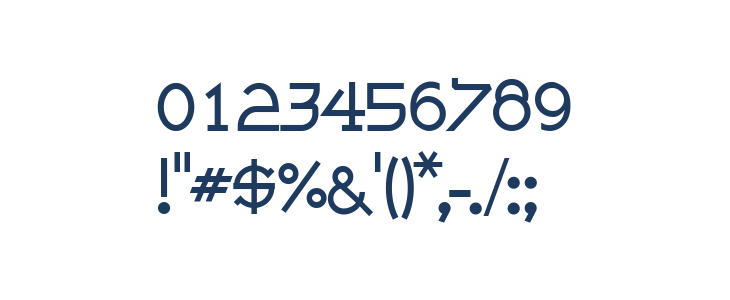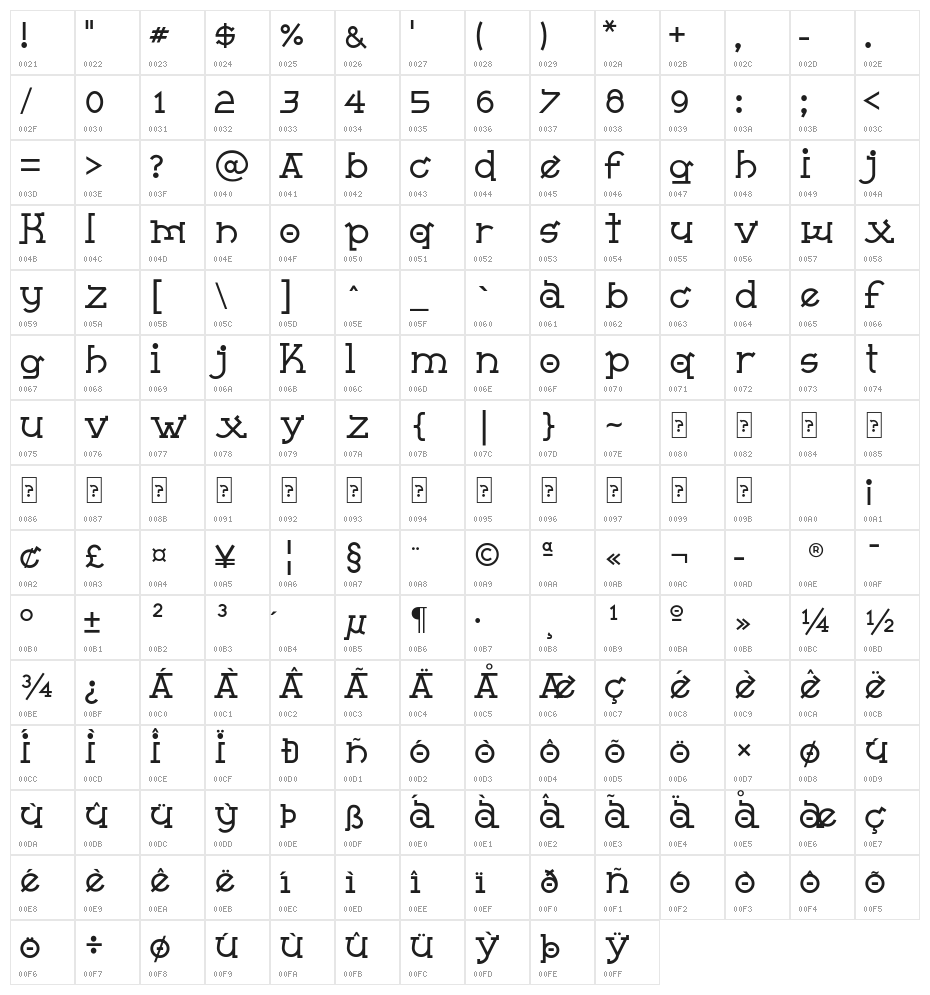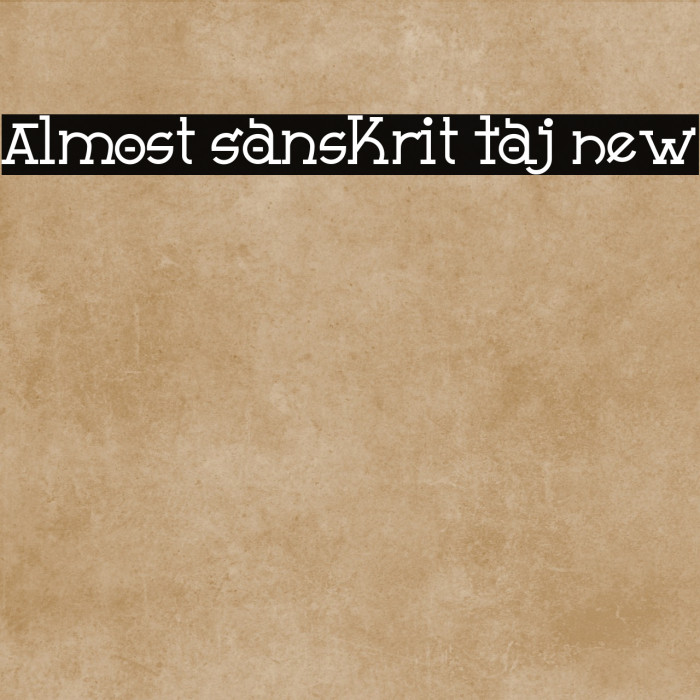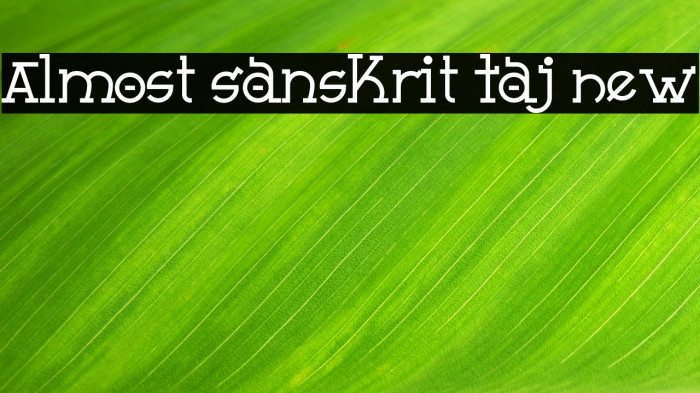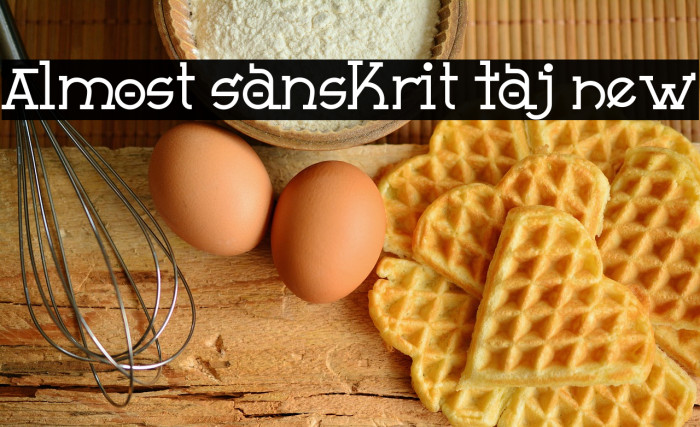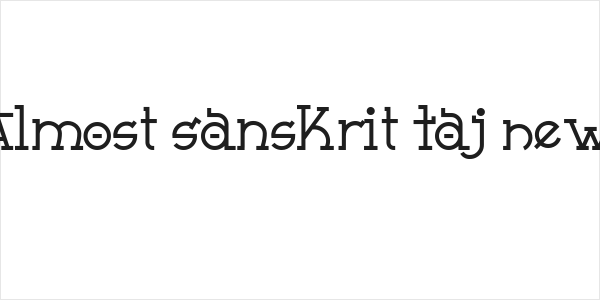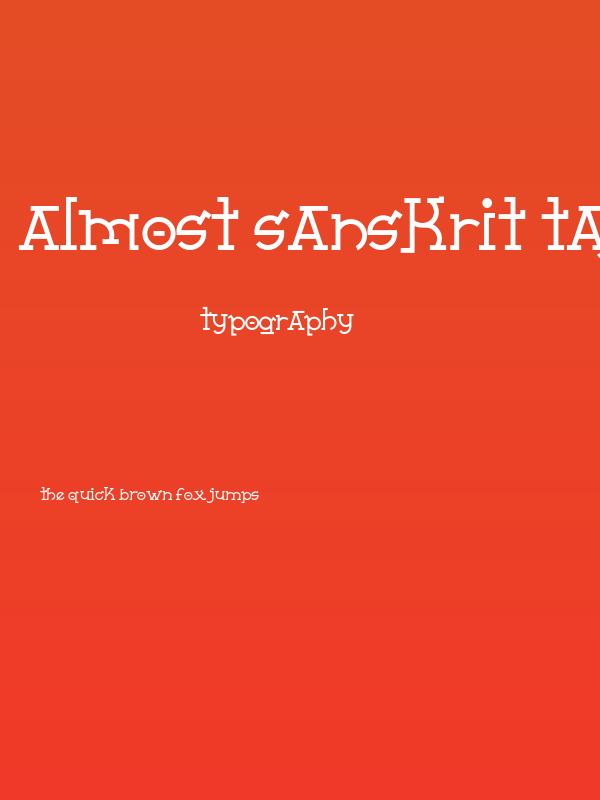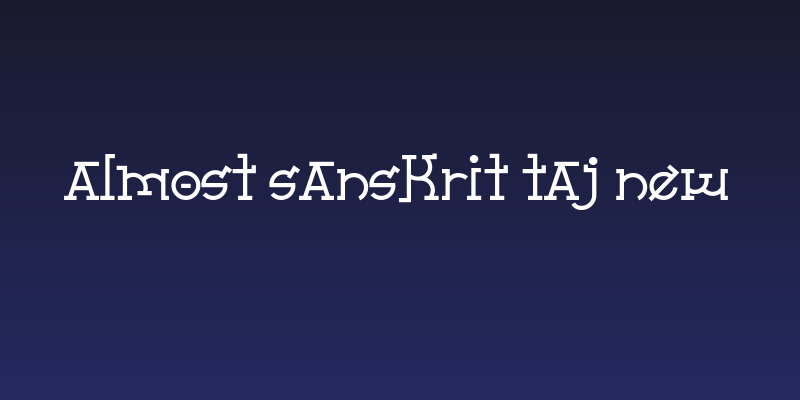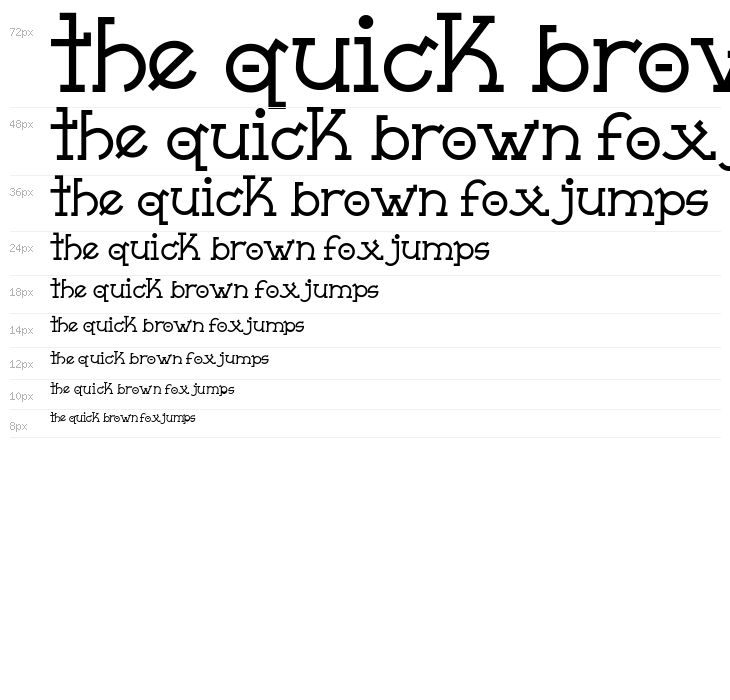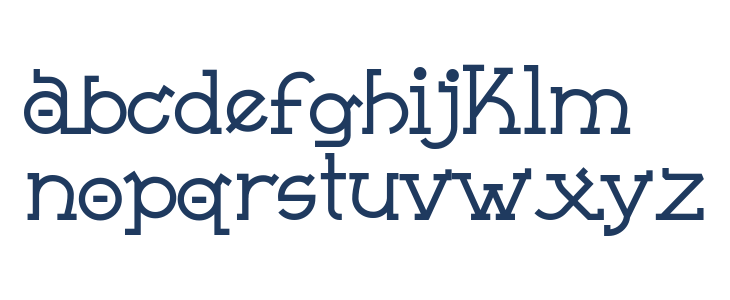
Almost Sanskrit Taj New Font
Almost Sanskrit Taj New Description
This font features a unique blend of geometric and traditional elements, creating a distinctive and modern look. The characters are bold and have a consistent stroke width, with a slight curve that adds a touch of elegance. The uppercase letters are particularly striking, with angular serifs and a strong presence. The lowercase letters maintain a similar style, with rounded edges that soften the overall appearance. Numbers are clear and easy to read, while the special characters are designed to match the font's overall aesthetic. This font is versatile and can be used in a variety of design projects.